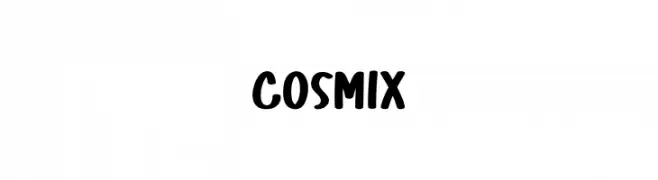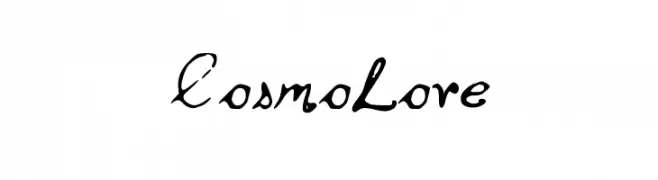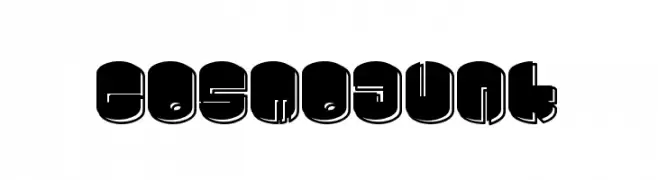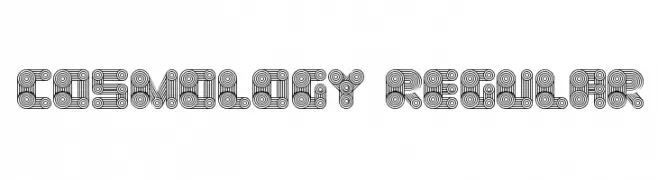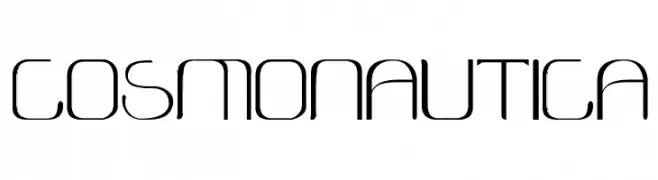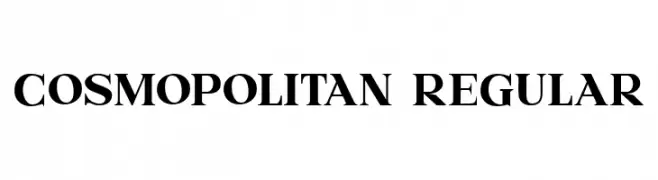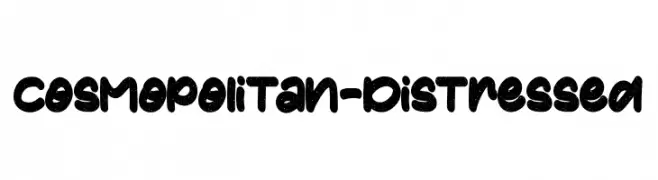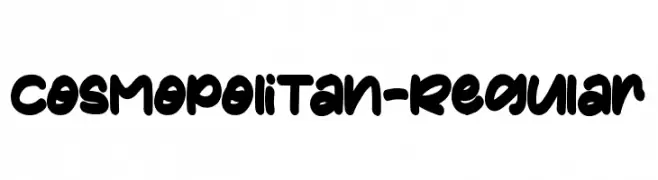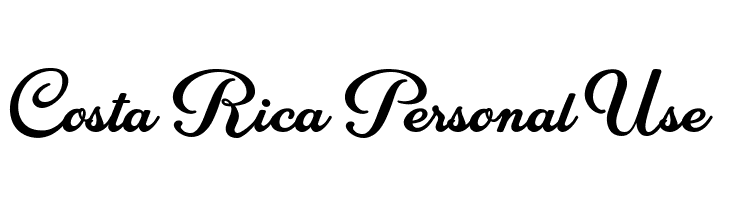
A modern, bold sans-serif font with geometric shapes and balanced proportions.
A bold, playful font with rounded edges and a friendly appearance.
A whimsical, cursive-like font with playful, fluid strokes and unique flourishes.
A bold, geometric font with a futuristic and playful design.
A decorative font with concentric circular patterns creating a futuristic look.
A futuristic and sleek font with thin, elongated letterforms and geometric shapes.
Bold serif font with a classic style.
A bold, distressed font with a playful, textured appearance.
A bold, playful font with rounded, thick strokes and a friendly appearance.